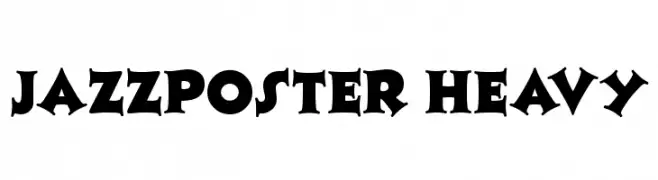
( Fonts by www.DigitalDreamDesign.net )
A pixelated, retro-style font with a digital, tech-inspired aesthetic.
( Fonts by Antonio Bucu - AdamAnt Designs )
A playful, bold font with rounded, hand-drawn characters.
( Fonts by www.DigitalDreamDesign.net )
A bold, geometric font with a digital and modern aesthetic.
A bold, geometric font with sharp, angular characters and a futuristic style.
( Fonts by Jacob Fisher - www.pizzadude.dk )
A bold, handwritten font with a playful and dynamic style.
( Fonts by www.aenigmafonts.com )
A bold, geometric font with sharp, angular lines.
( Fonts by ShyFonts )
A bold, condensed font with high contrast and a modern, impactful style.
( Fonts by Mr Fisk - Mike Larsson - fontorama.net )
A whimsical and irregular hand-drawn font with a playful and artistic style.
( Fonts by Jacob Fisher - www.pizzadude.dk )
A modern, geometric font with crown motifs, ideal for decorative use.
( Fonts by ShyFonts )
A bold, extended typeface with a modern, assertive style.
( Fonts by www.fontalicious.com )
A futuristic, geometric font with bold, blocky letterforms and consistent stroke width.
( Fonts by www.kiwi-media.com )
A bold, futuristic font with geometric shapes and rounded edges.
A pixelated, monospaced font with a digital, grid-like appearance.
( Fonts by www.fontalicious.com )
A playful, bold, and hand-drawn font with exaggerated curves.
A bold, wide, and italic font with high contrast and sharp edges.
( Fonts by Omega Font Labs )
A bold, dripping font ideal for horror-themed designs.
( Fonts by Dibujado )
A modern, geometric font with clean lines and rounded edges.
( Fonts by Uddi Uddi )
A modern, elongated font with narrow characters and a sleek appearance.
( Fonts by Graham Meade - GemFonts )
A modern, geometric font with rounded edges and consistent stroke width.
( Fonts by www.fontalicious.com )
A bold, modern font with rounded edges and a slight slant.
( Fonts by dustBUST - Andreas Nylin )
A futuristic, italicized typeface with rounded edges and a sleek, modern appearance.
( Fonts by Alan Carr )
A playful, bold font with rounded, bubbly characters and a hand-drawn feel.